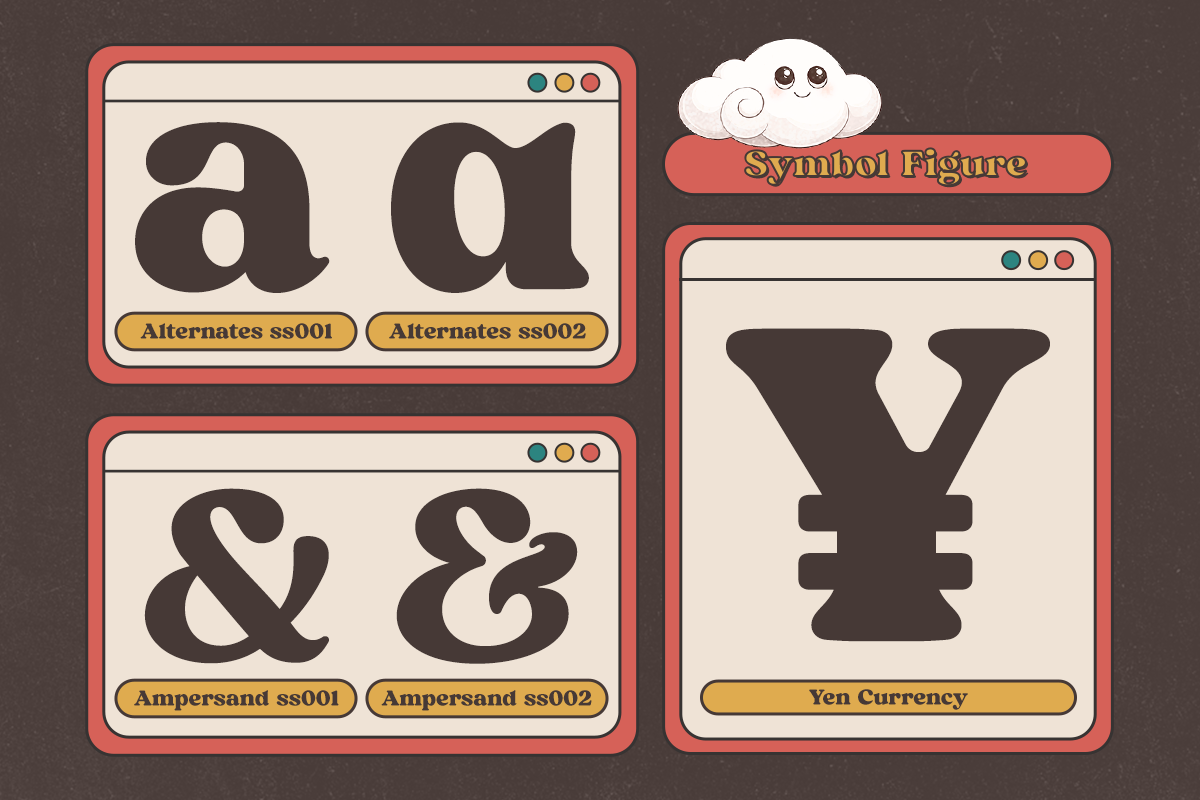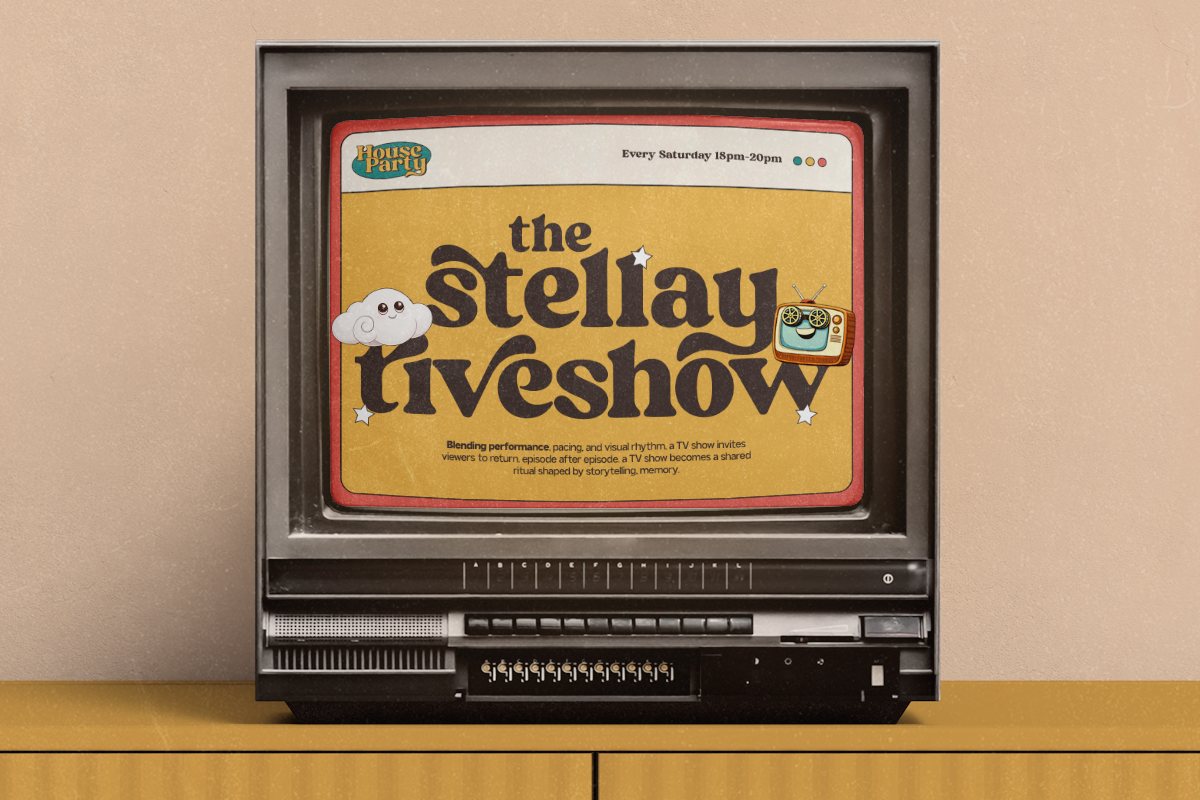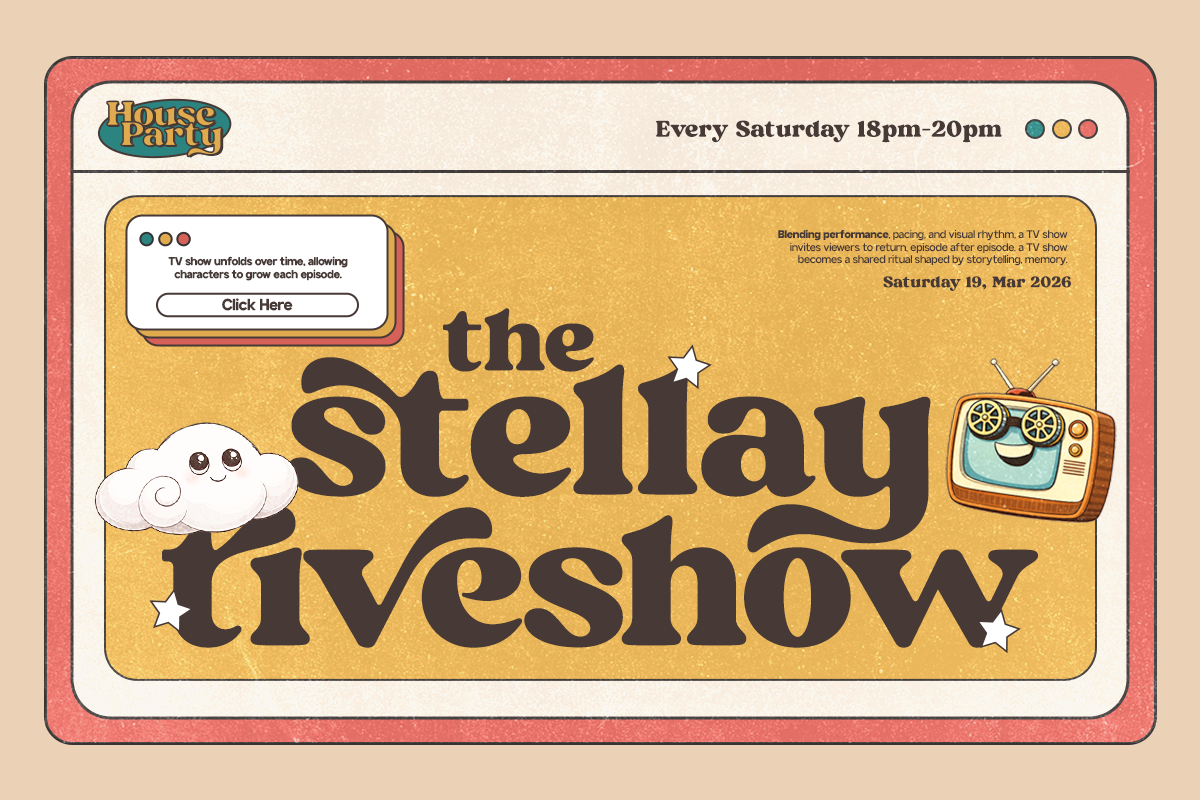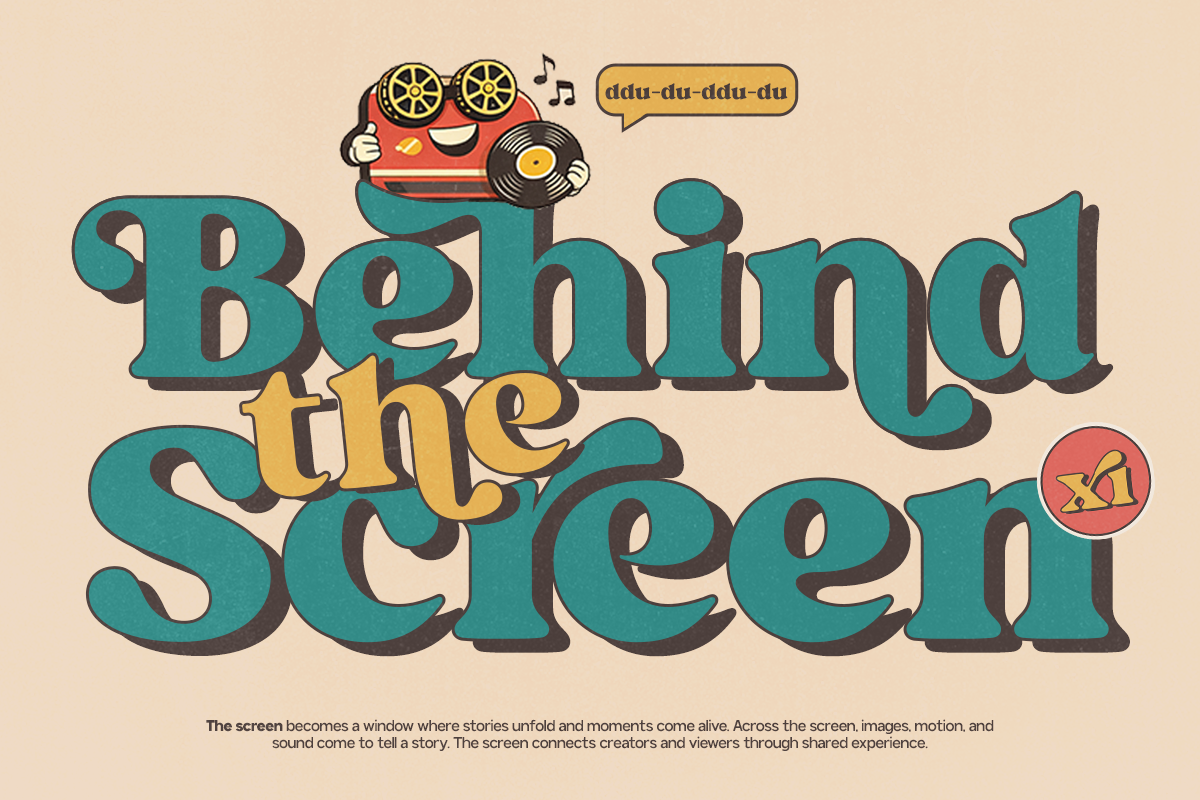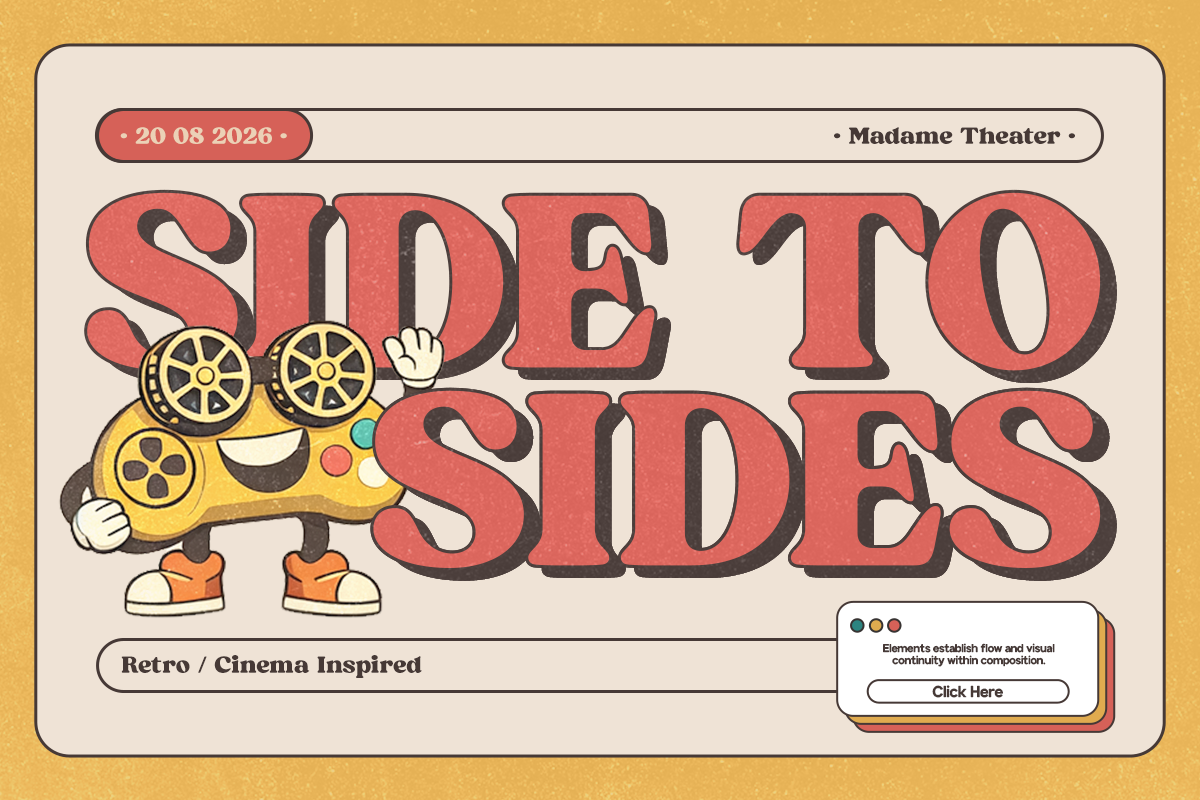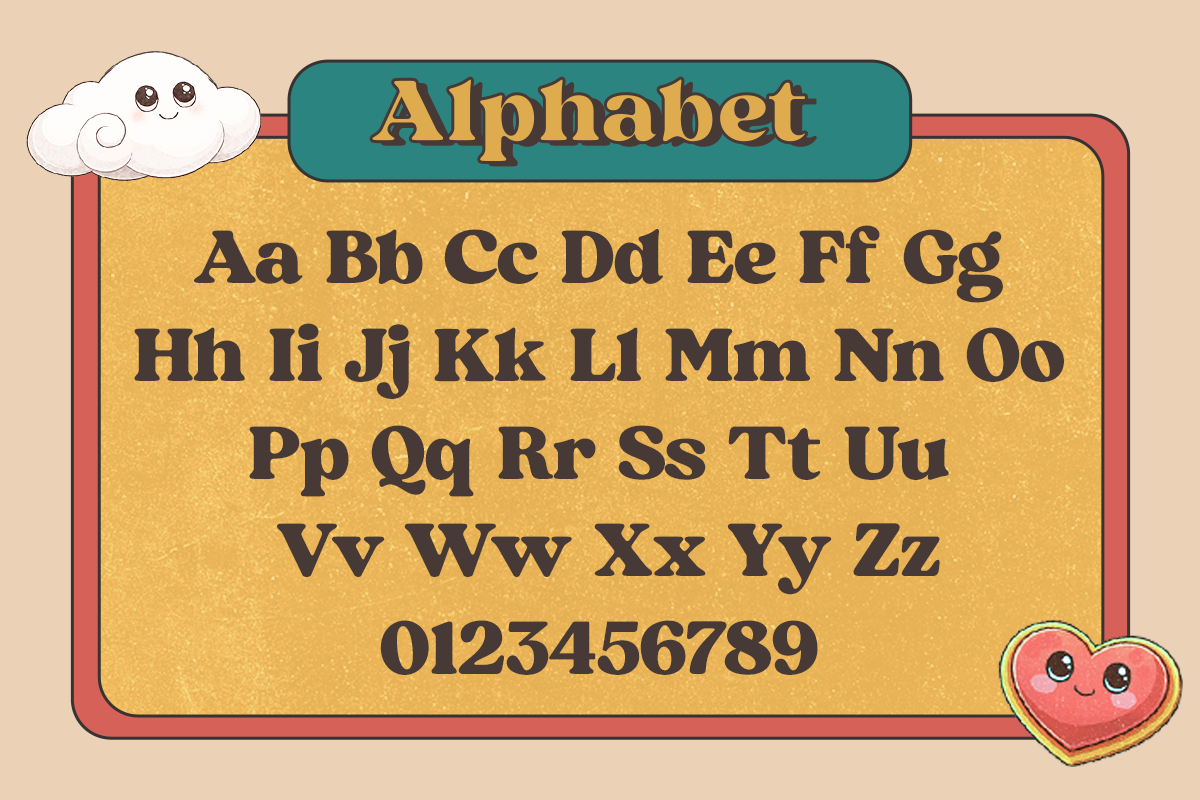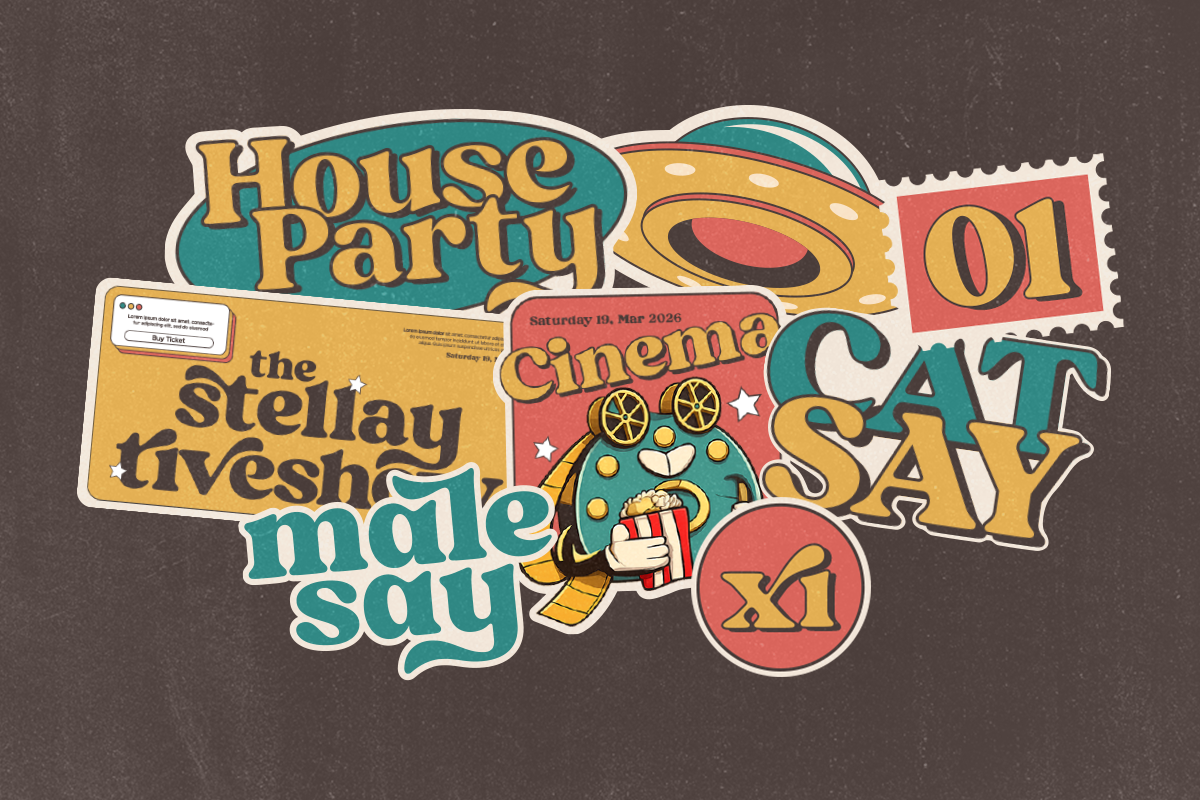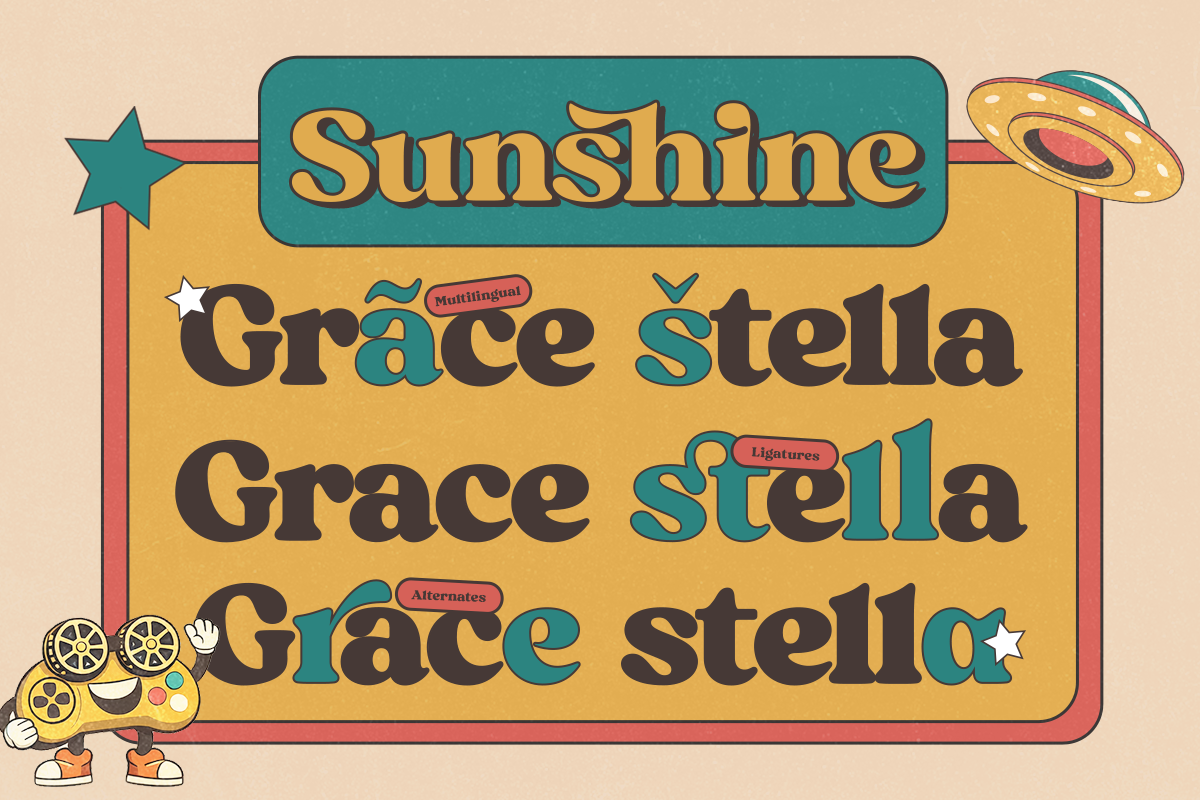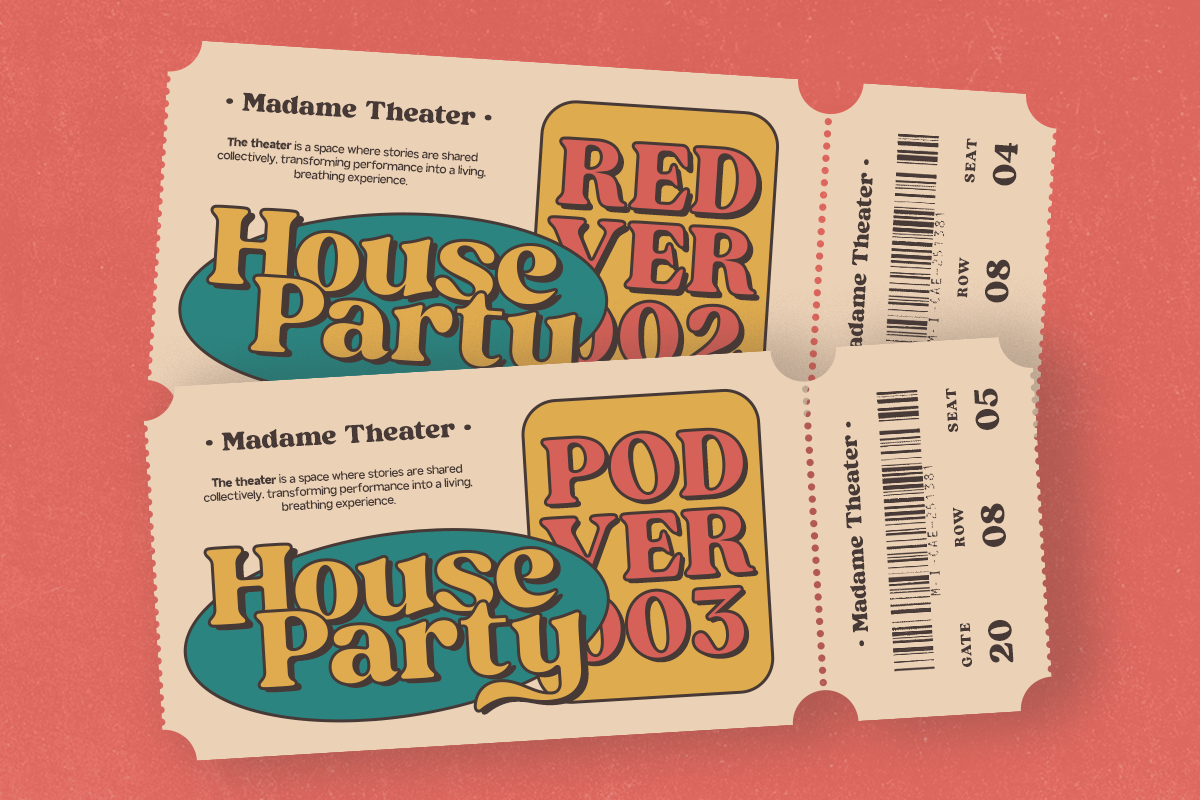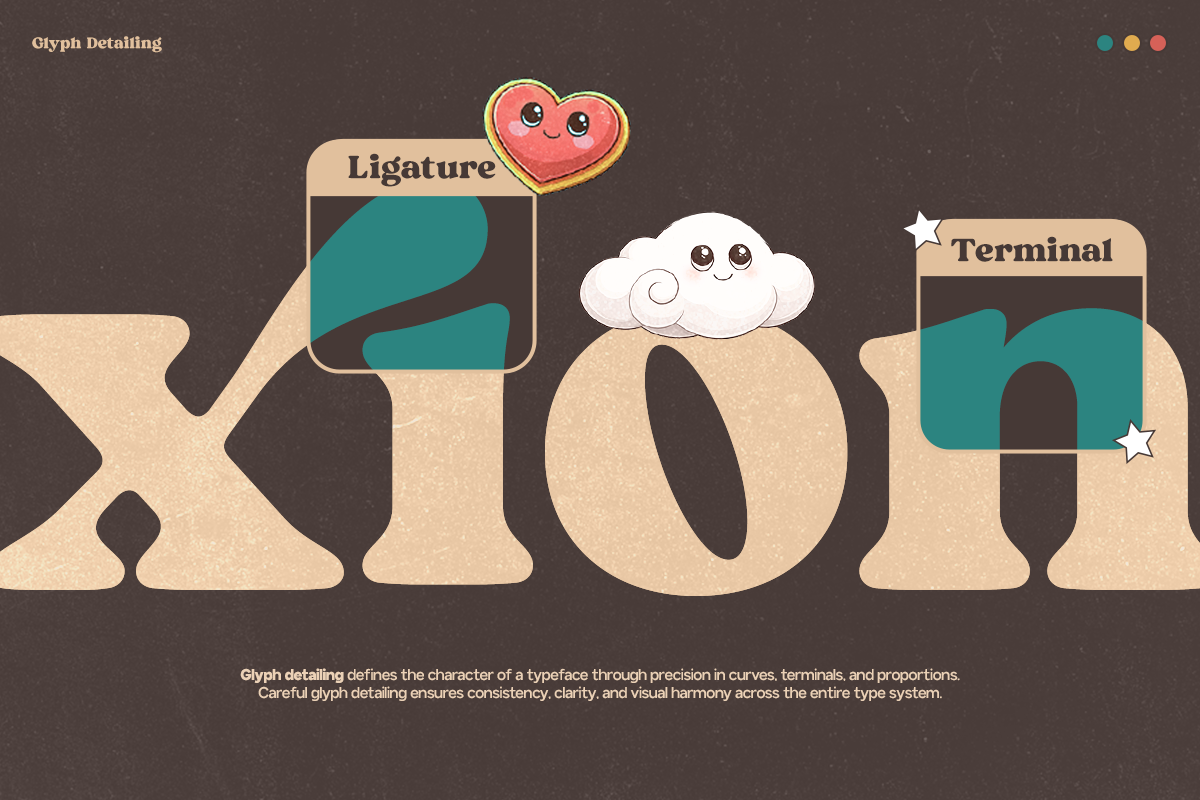
GC Club Brand - Bold Retro Serif
GC Club Brand - Bold Retro Serif is a powerful retro-inspired serif typeface designed to make a bold statement. Influenced by vintage club culture, classic branding, and old-school display typography, this font combines strong serif structures with confident curves to create a striking and memorable presence.
Built for impactful headlines and standout branding, GC Club Brand is perfect for logos, posters, merchandise, packaging, editorial layouts, and retro-themed visual identities. Its bold weight and distinctive letterforms deliver attitude, energy, and timeless character while maintaining clarity and balance.
Carefully crafted proportions and solid serif detailing ensure versatility across both print and digital media. Whether you’re creating nostalgic club posters or strong brand visuals, this typeface brings depth, personality, and vintage strength to your typography.
- Bold Retro Serif Construction
- Multilingual Support (170+ Languages)
Make your typography louder, stronger, and unmistakably bold with GC Club Brand - Bold Retro Serif.